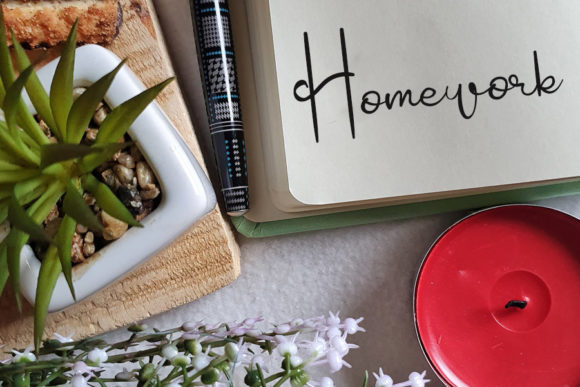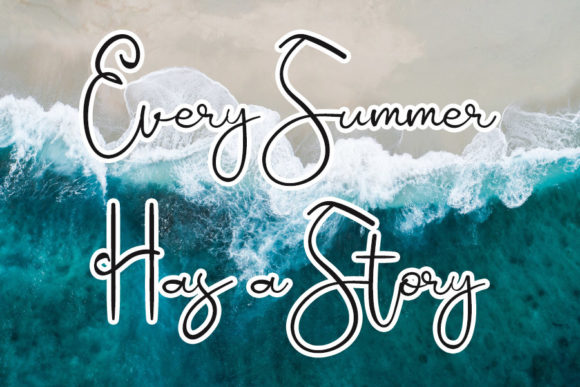
Summertime Font
db-ku.com - Script & Handwritten -- Summertime is a thin and beautiful handwritten font. Its distinct and well rounded letters make this font a masterpiece. Masterfully designed to become a true favorite, this font has the potential to bring each of your creative ideas to the highest level.